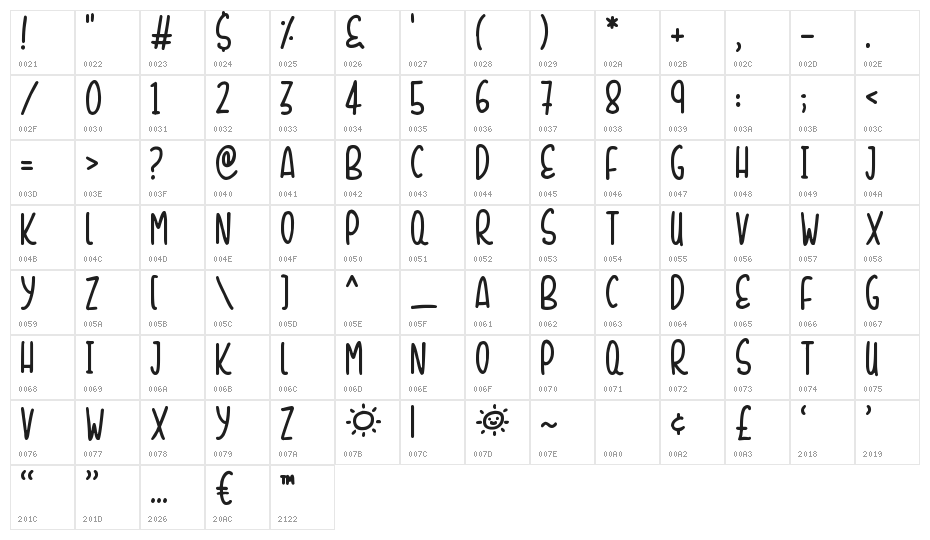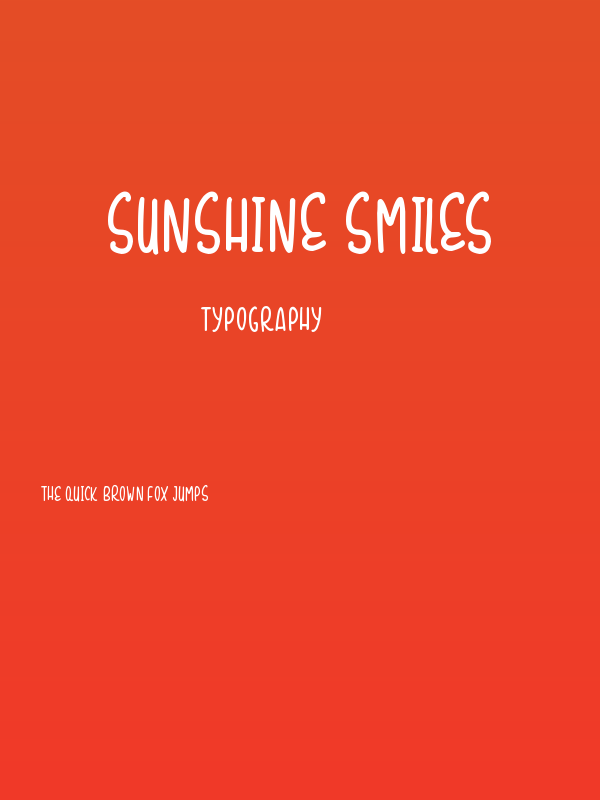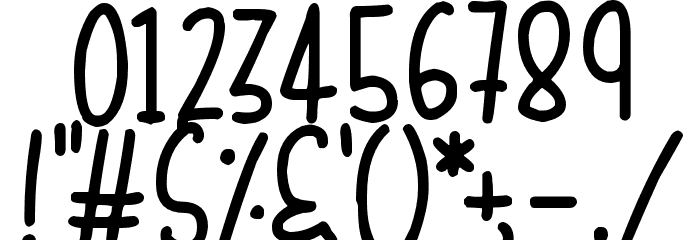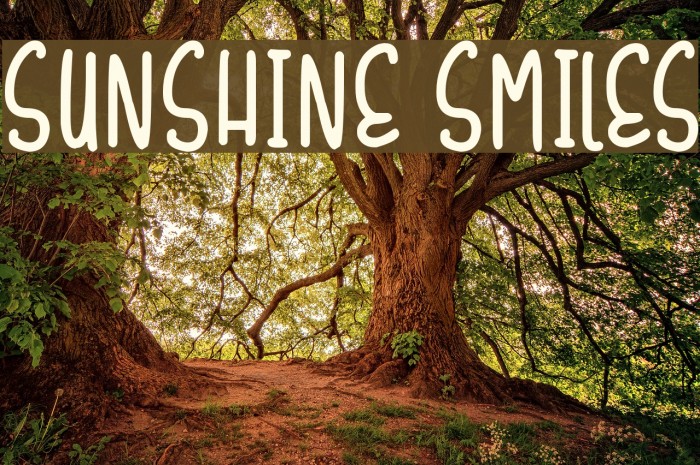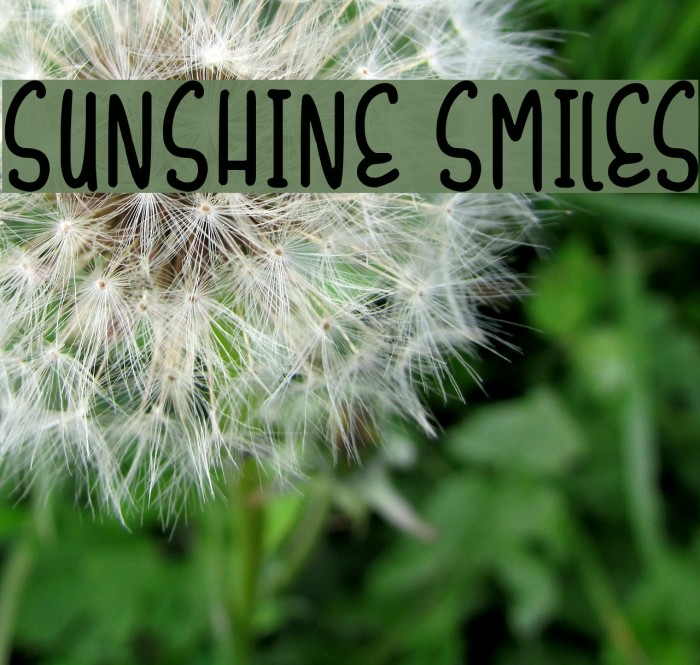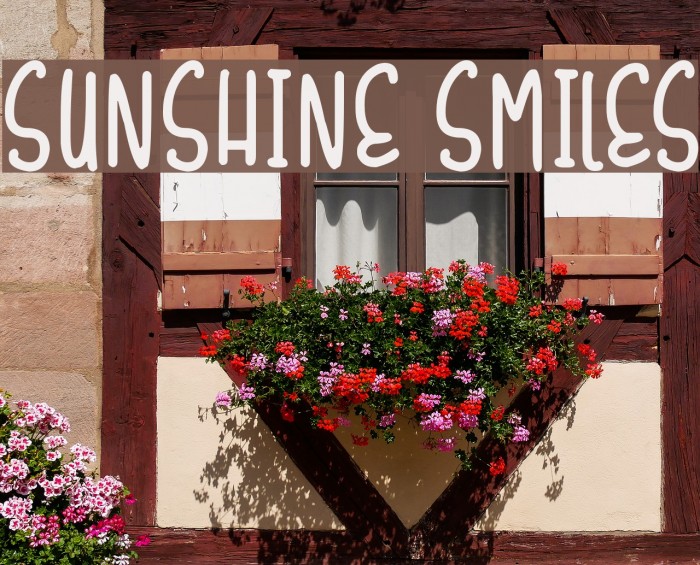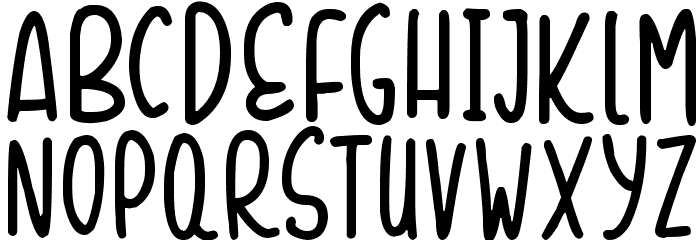
Sunshine Smiles Font
Sunshine Smiles Description
This playful and whimsical font features a handwritten style with rounded edges and a casual, friendly appearance. The characters are slightly elongated, giving them a unique and approachable look. The strokes are consistent in width, providing a uniform appearance across all letters and numbers. This font includes a full set of uppercase and lowercase letters, numerals, and a variety of special characters. Its informal and lively design makes it ideal for projects that aim to convey warmth and approachability.
| Proposed Projects | Ideal for children's books, greeting cards, playful branding, and social media graphics. |